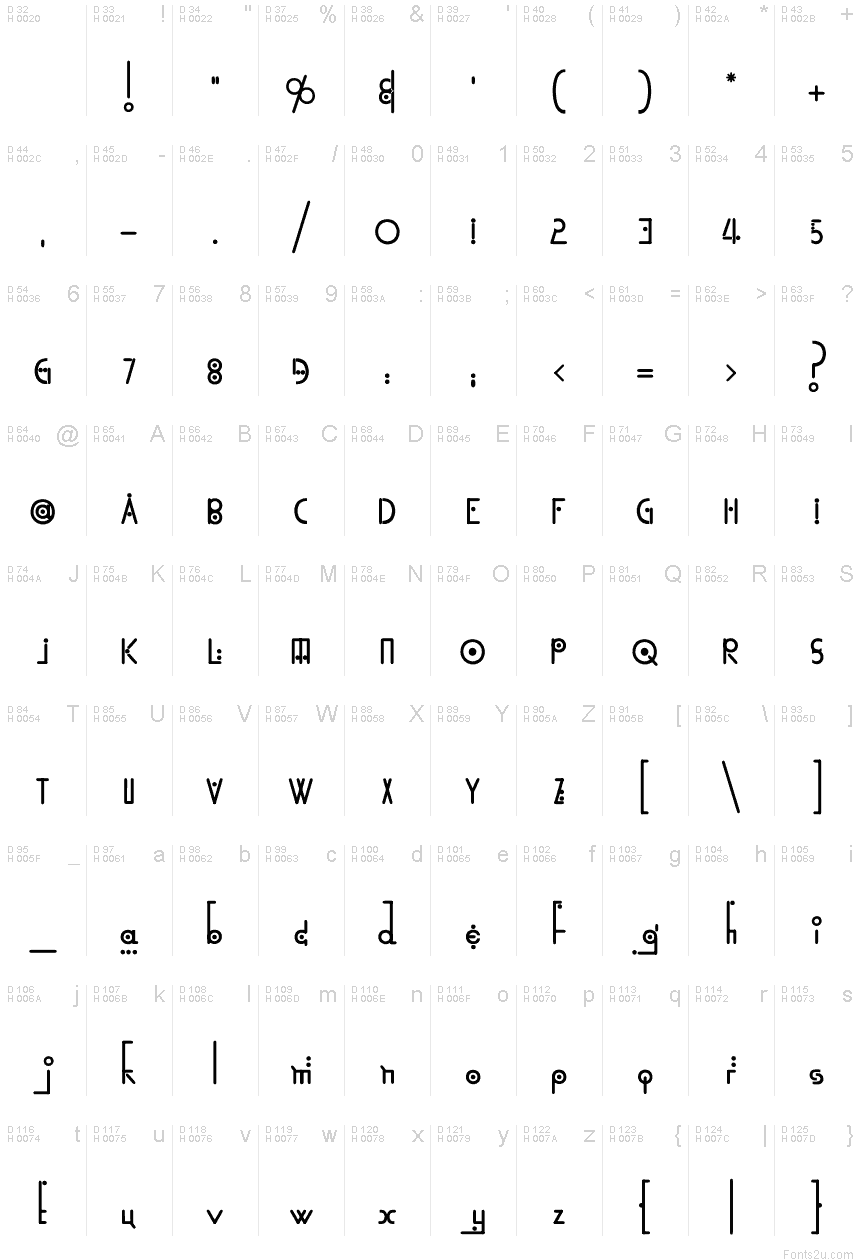
Kingthings Linear K by Kingthings is a free geometric display font built from spare monoline strokes and crisp circular forms. Many letters break into separate bars, arcs, and dots, giving the alphabet the logic of a modular construction kit. The rounded ends keep it approachable.
Designers working for youth, music, or technology audiences can use its clean, playful geometry in posters, event graphics, and merchandise. It can also shape a memorable brand identity for creative studios or digital products. The recurring dots can echo interface controls, map points, or simple illustrations, turning the lettering into part of the graphic idea.